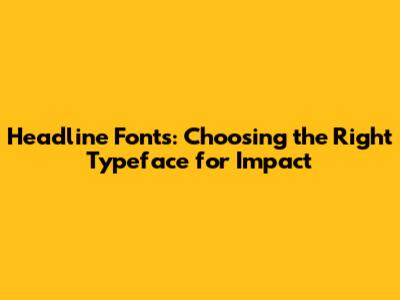
Serif Fonts: These are the classic, elegant fonts with little decorative strokes (serifs) at the end of each letter. Think of them as the fonts that bring a sense of tradition, sophistication, and authority. They're great for projects where you want to convey trustworthiness, like in financial reports or prestigious publications. Popular examples include Times New Roman, Georgia, and Garamond. Serif fonts have been used for centuries because of their readability and elegant aesthetics. These are an excellent choice for a wide variety of headlines to bring a touch of class.
Sans-Serif Fonts: These fonts lack those little serifs, resulting in a cleaner, more modern look. They're all about simplicity and are perfect for a contemporary feel. If you're aiming for a sleek, minimalist aesthetic, sans-serif fonts are your best bet. These are the workhorses of the internet, often chosen for websites and digital content because they render beautifully on screens. Think Helvetica, Arial, and Open Sans. Sans-serif fonts are versatile and suitable for a variety of headlines.
Script Fonts: Ah, the script fonts! They mimic handwriting, adding a touch of personality, elegance, and sometimes even a hint of playfulness. They come in various styles, from formal calligraphy to casual brushstrokes. Script fonts are perfect for projects where you want to evoke a sense of creativity, such as invitations, logos, or branding materials. But be careful – readability can sometimes be an issue, especially in large blocks of text. Examples include Lobster, Pacifico, and Brush Script MT. Be aware of the legibility when choosing these headline fonts, especially when it comes to long titles.
Display Fonts: Display fonts are the showstoppers. They're designed for headlines, titles, and other areas where you want to grab attention. They often have unique and eye-catching designs, making them ideal for creating visual interest. They come in all shapes and sizes, from bold and chunky to quirky and artistic. But remember, readability is key, so make sure your display font is easy to read. Popular options include Bebas Neue, Impact, and Montserrat. These are the fonts that scream
Hey there, design enthusiasts! Today, we're diving headfirst into the exciting world of headline fonts. Choosing the perfect typeface for your headlines might seem like a small detail, but trust me, it's a game-changer. A well-chosen headline font doesn't just grab attention; it sets the tone, communicates your message effectively, and elevates your overall design. Whether you're a seasoned designer or just starting out, understanding the nuances of headline fonts is crucial for creating visually stunning and impactful content. So, let's explore the key elements of headline font selection and how to make your titles pop! Choosing the right font can be a real headache, right? So many options, so little time! But don't worry, we'll break it down step-by-step to make it super easy for you. The importance of headline fonts is often underestimated. They are the first impression, the visual hook that draws readers in. A good headline font complements your content, reflects your brand's personality, and guides the reader through your message. A poor choice, however, can make your headlines look cluttered, unprofessional, or even confusing. Therefore, selecting the correct headline fonts is a non-negotiable step in the design process.
Let’s be honest, you want your designs to look polished and professional, and a good font is half the battle. Think about it: a well-crafted headline, using the right font, is like the catchy intro to your favorite song—it gets you hooked right away. It's the visual equivalent of a firm handshake or a warm smile. First impressions really do matter, and in the world of design, your headline fonts are your first impression. They are the ambassadors of your message. They are the most prominent text element on your design, which needs to be legible, attention-grabbing, and in line with your brand's image. Selecting the right font isn't just about aesthetics; it's a strategic decision that affects readability, brand identity, and the overall success of your design. The perfect headline fonts can make your brand instantly recognizable and memorable, setting you apart from the competition. So, let's explore the different types of fonts and how to pick the right one for your project. Ready to level up your design game? Let's dive in!
Decoding Font Types: A Quick Guide
Alright, let's get down to the basics. Understanding the different font classifications is the first step in mastering the art of headline font selection. Each type of font has its unique characteristics, strengths, and weaknesses. This is why learning the basic is so important for choosing the headline fonts. Here's a quick rundown of the main font categories, guys: